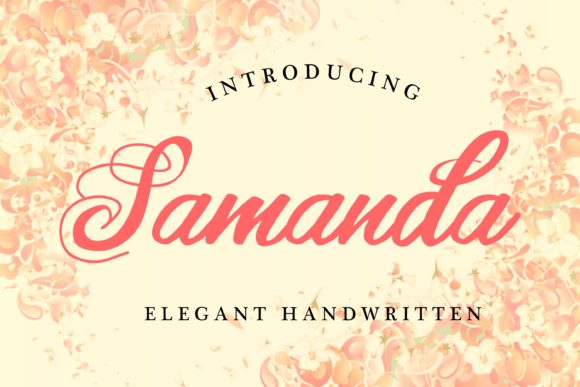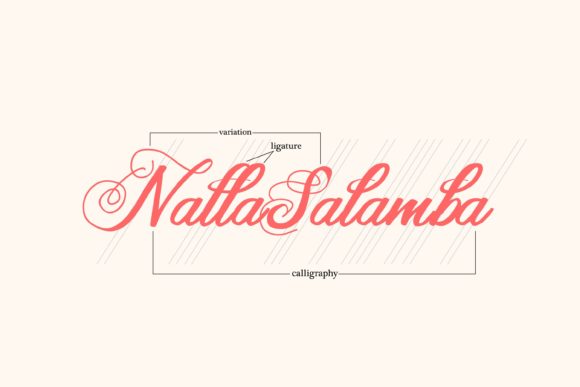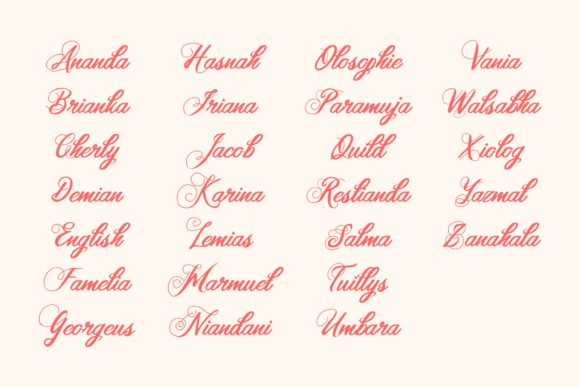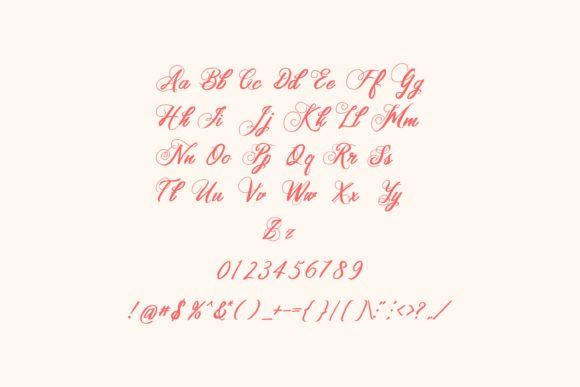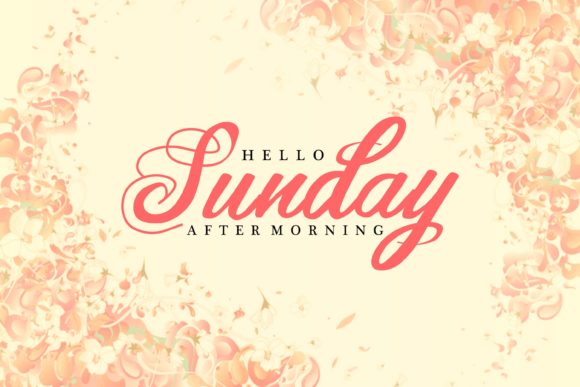
Samanda Font
About Samanda Font
The Samanda is a modern calligraphy font that has a slight scratch. It’s the perfect font to add a feminine and elegant touch to your designs.